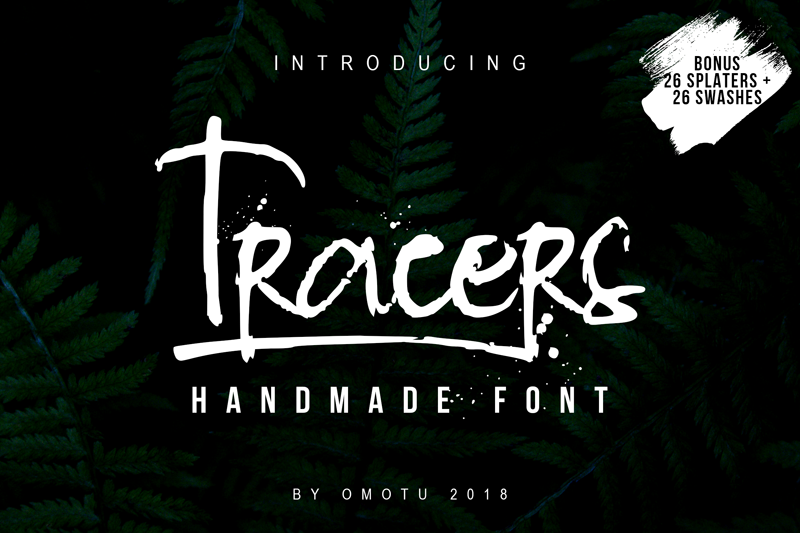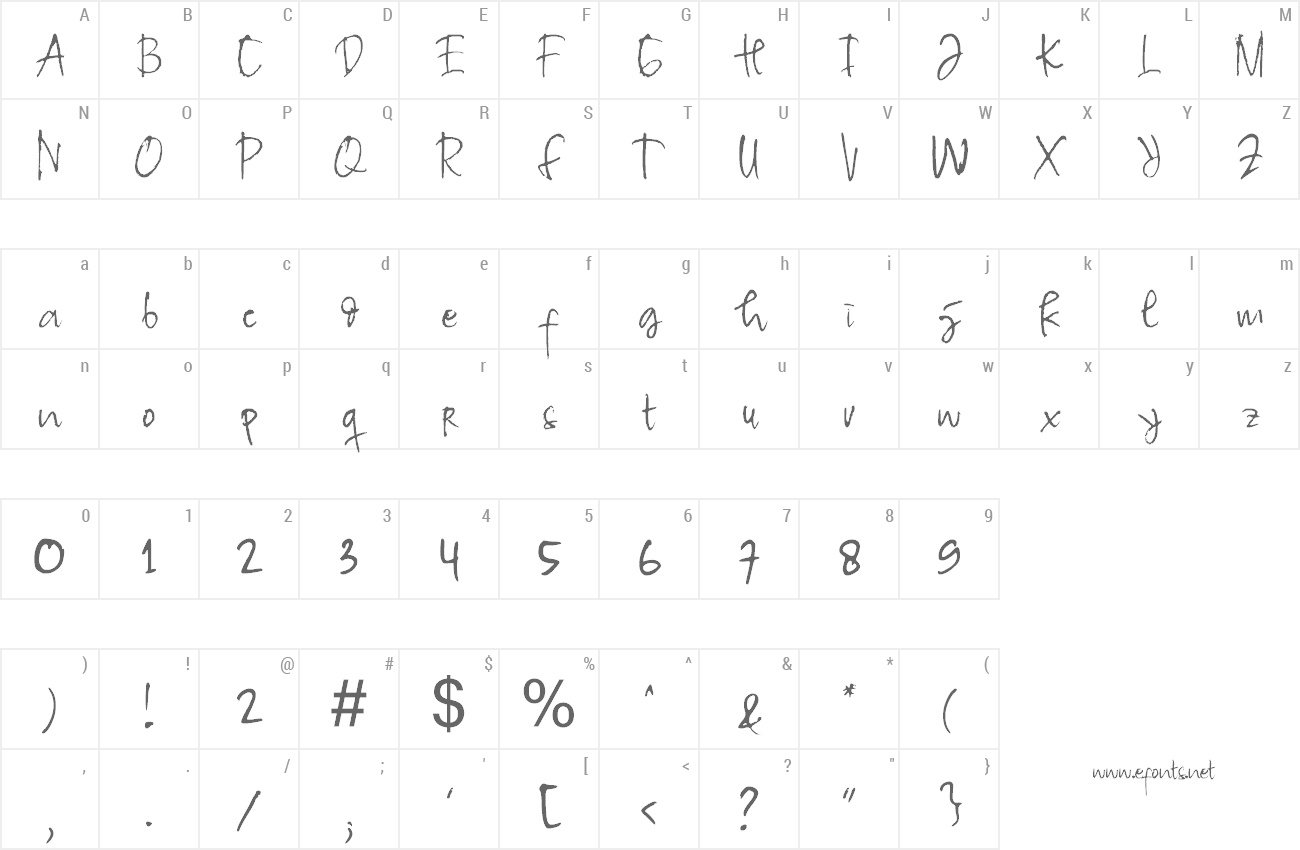
Preview and download Tracer Script Font. Created by Ibnu Utomo in Script Brush styles with Free for personal use license.
Details Tracers is a hand-made pen font, designed to combine perfectly and allow you to create stunning hand-lettering quickly and easily. Also included 26 bonus swashes and 26 bonus splaters, ideal for giving your text that final touch of finesse! What's Included? 1. Uppercase and lowercase characters 2. Large set of punctuation glyphs, numerals, and supports international languages 3. Stylistic alternates for several key lowercase characters are also available 4. Accessible in the Adobe Illustrator Glyphs panel, or under Stylistic Alternates in the Adobe Photoshop OpenType menu. 5. Bonus 26 swashes and 26 splaters 6. TTF and OTF files This demo font is for PERSONAL USE ONLY! https://pixelify.net/downloads/tracers-handmade-script-font/ Link to purchase full version and commercial license: https://fontbundles.net/omotu/181609-tracers-handmade-script-font Please visit our store: https://fontbundles.net/omotu https://www.creativefabrica.com/designer/omotu/ Thanks for looking, and I hope you enjoy it! Please don't hesitate to drop me a message if you have any issues or queries. Thanks & Regars, Omotu |